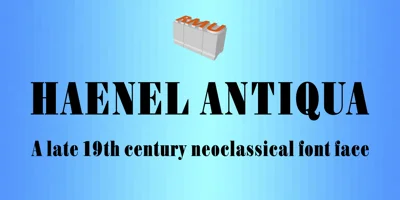
Haenel Antiqua Font
Where to Use Haenel Antiqua Font?
This distinguished font excels in:
• Academic publications & theses
• Luxury brand identities
• High-end book typography
• Museum exhibition graphics
• Premium wine labels
• Classic editorial design
Why Haenel Antiqua Font Stands the Test of Time
This font embodies typographic excellence with:
→ Perfectly proportioned Roman letterforms
→ Graceful serifs with subtle bracketing
→ Multiple optical sizes for versatility
→ Extensive ligature set for refined typesetting
→ Special "illuminated manuscript" alternates
Haenel Antiqua Font Family Includes
6 weights from Light to Black
True italic counterparts
Small caps with old-style figures
Discretionary ligatures
Extended Latin character support
Haenel Antiqua Font provides:
✓ 1,100+ meticulously crafted glyphs
✓ Advanced OpenType features
✓ Perfect for fine printing
✓ Includes classic ornament set